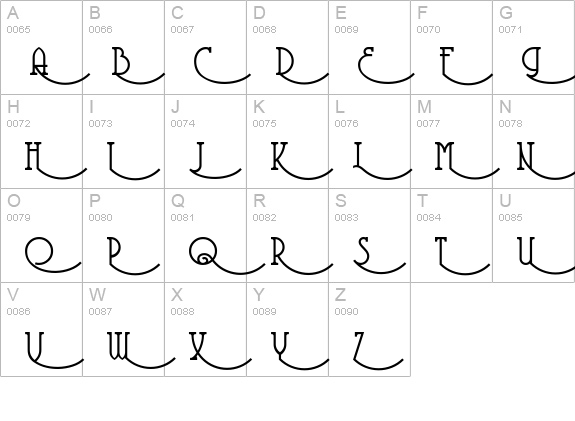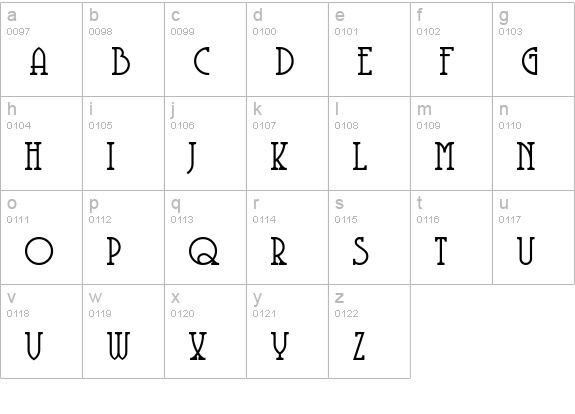
CoventryGarden font is a beautifully crafted typeface that exudes elegance and sophistication. Its graceful curves and intricate details make it a perfect choice for a wide range of design projects, including wedding invitations, branding materials, and luxury packaging. With its delicate strokes and flowing lines, CoventryGarden font adds a touch of refinement to any text. It effortlessly captures the essence of a blooming garden in spring, with its organic forms and gentle movement. Each letter is meticulously designed to create a harmonious balance between elegance and legibility, ensuring that your message is conveyed with style and clarity. What makes CoventryGarden font even more appealing is the fact that it is freely available to download at FontsMarket.com. This means that you can easily access and use this stunning font in your projects without any cost. Whether you are a professional designer or a creative enthusiast, CoventryGarden font offers the opportunity to elevate your work to new heights, without breaking the bank. So why settle for ordinary when you can add a touch of sophistication to your designs with CoventryGarden font? Download it for free at FontsMarket.com and let your creativity flourish.